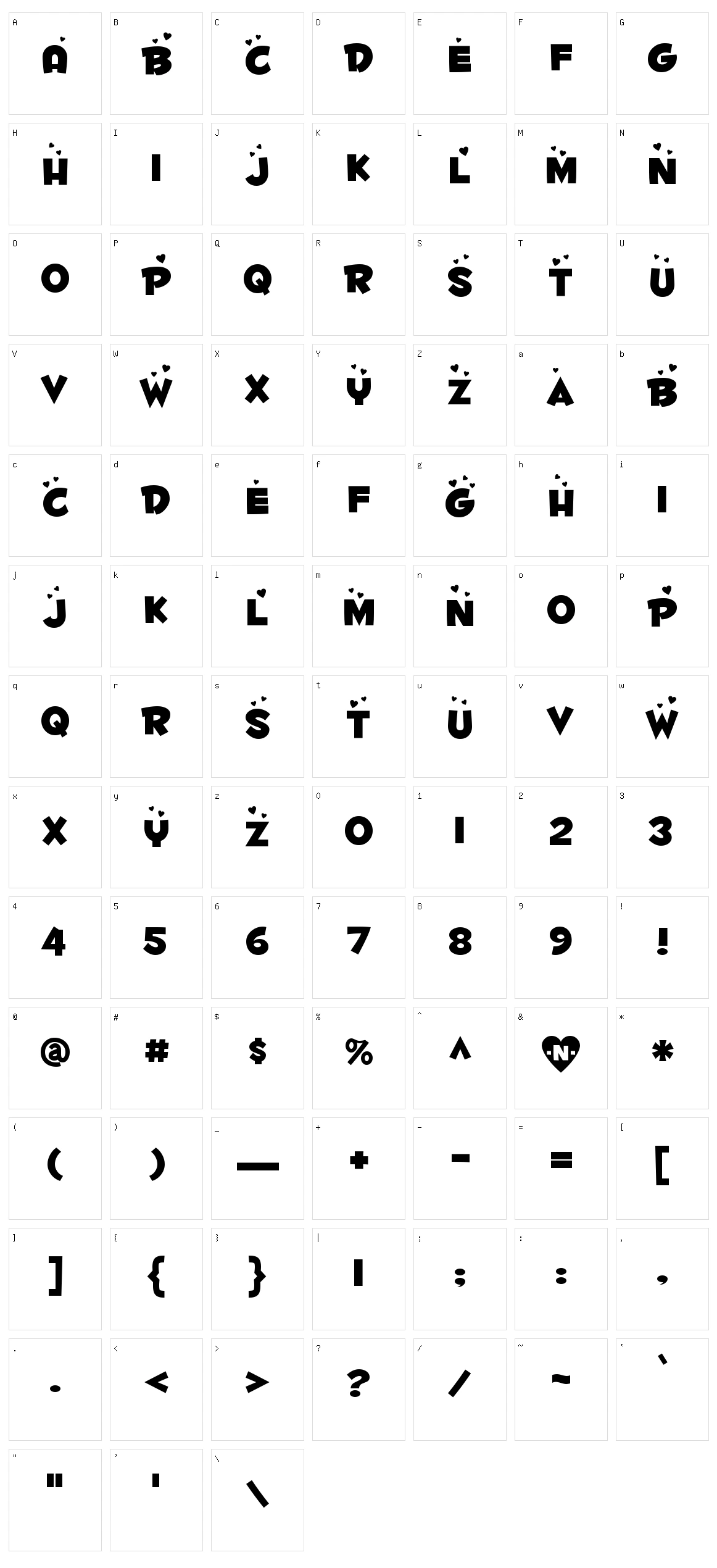
Fontdinerdotcom Luvable
The next time somebody catches you blushing, they just may see tiny animated floating hearts over your head! It's just Luvable!